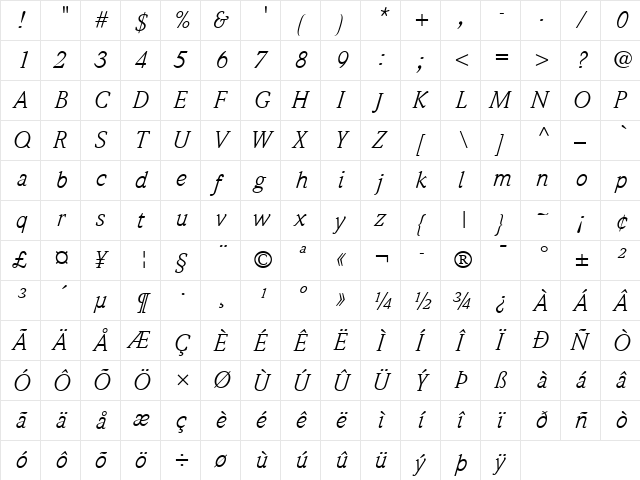
Weidemann LT Book Italic Font Preview
Design Context for Weidemann LT Book Typeface
Weidemann LT Book takes a measured approach to typography — its balanced proportions and neutral character make it a reliable workhorse for both digital and print work. Its italic angle brings a sense of urgency and motion to the letterforms. Its slender proportions lend an understated elegance to any composition.